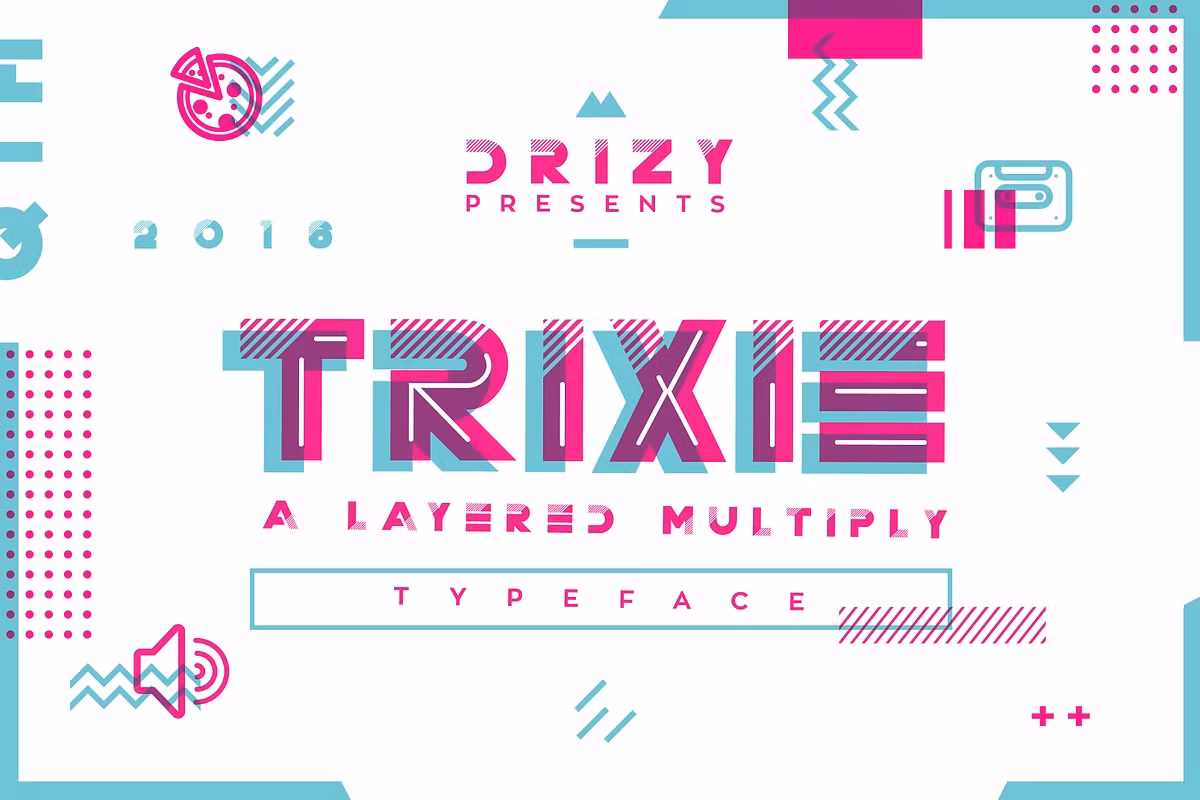
Trixie | A Layered Multiply Typeface Free Download
Trixie | A Layered Multiply Typeface Free Download is a bold and playful display font that uses layering and color blending to create eye-catching, dimensional typography. Perfect for posters, music event flyers, packaging, creative branding, and editorial design, Trixie brings energy and originality to every project.
With multiple styles that stack and multiply, this typeface allows for endless creative combinations—ideal for designers who want to break the mold and stand out. Whether you're aiming for retro vibes or vibrant modern compositions, Trixie is built to impress.
Designers love Trixie for its flexibility, fun-loving attitude, and high-impact visuals across digital and print. Want to make your designs pop? Download Trixie | A Layered Multiply Typeface Free Download and add a colorful twist to your typography toolkit.